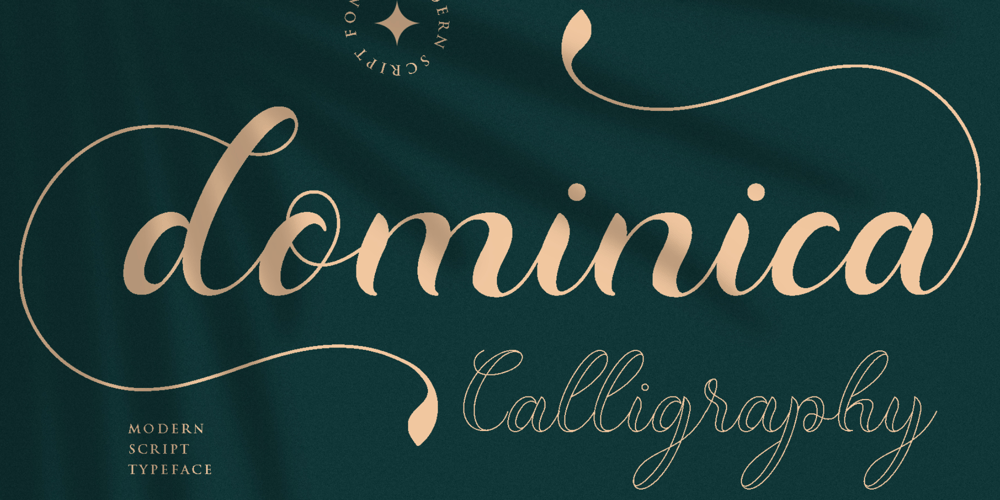
Dominica Calligraphy Font Family was designed by Ride Studio and published by Ride Studio. Dominica Calligraphy contains 2 styles and family package options. Dominica Calligraphy is a balanced, subtle, elegant and stylish handwritten font. It has beautiful character. This font comes with a matching Outline/Monoline version. Perfectly match the design of invitation cards, company logos, movie titles, movie names, business cards, book titles, brand names and various other designs. Dominica Calligraphy is a chic, refined script font that emanates sophistication and elegance. Its stylish alternates and ligatures make this font the perfect match for any project.